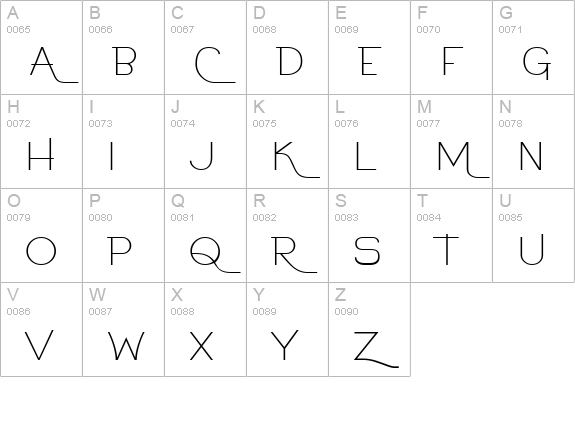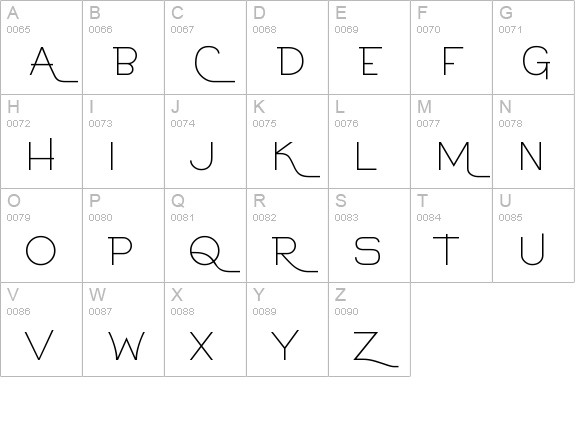
Calamity Teen BTN Lt Font Details
Calamity Teen BTN Lt font is a stylish and modern typeface perfect for adding a touch of youthful energy to your designs. With its sleek lines and contemporary look, this font exudes a sense of creativity and playfulness. Whether you're working on a poster, logo, or any other creative project, Calamity Teen BTN Lt font will bring a fresh and dynamic feel to your work. The best part is that Calamity Teen BTN Lt font is available for free download at FontsMarket.com. This means you can easily access this versatile font and incorporate it into your projects without any cost. Don't miss out on the opportunity to enhance your designs with this fantastic font - download Calamity Teen BTN Lt today and let your creativity shine!